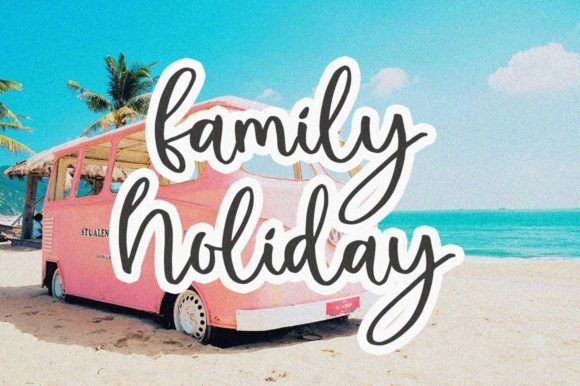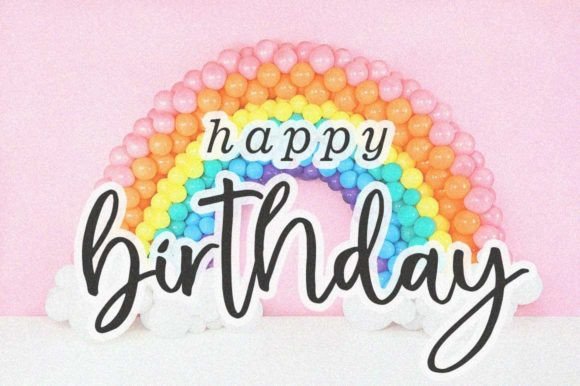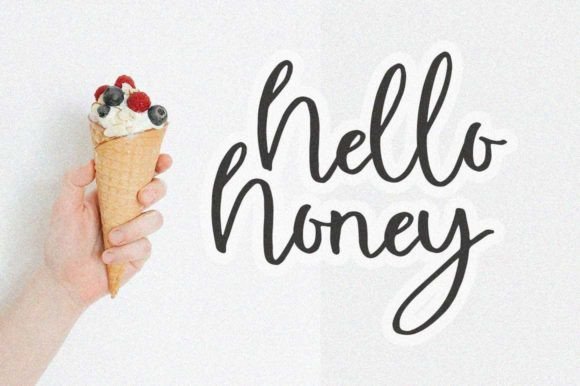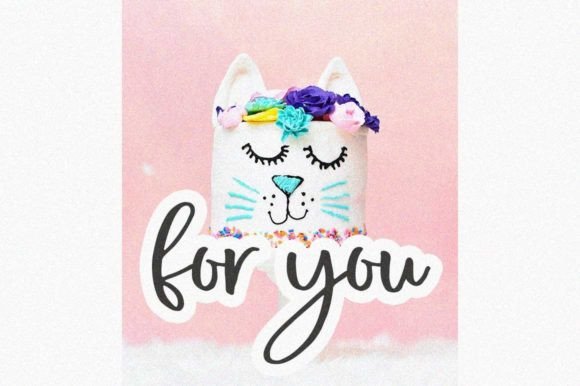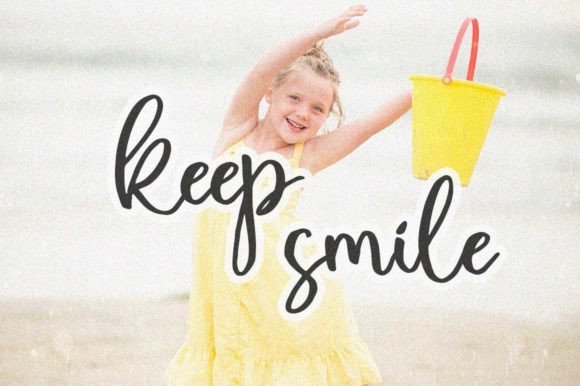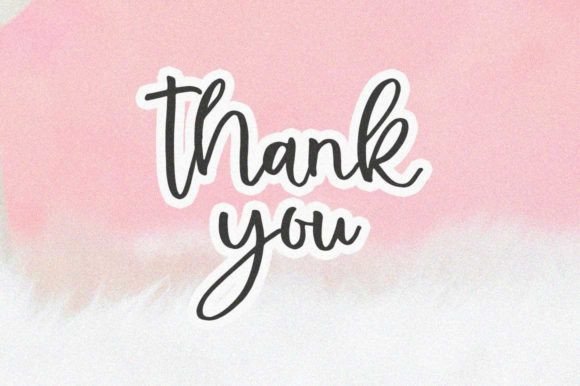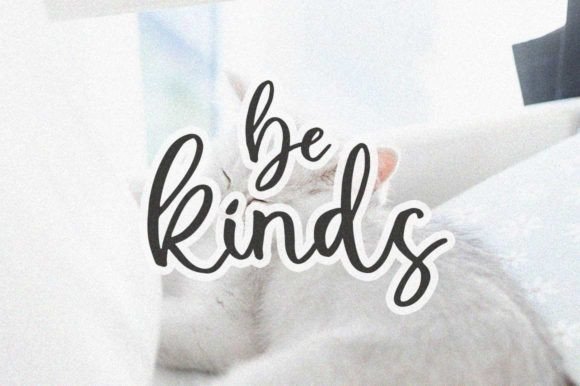
Farmhouse Kitchen Font
Add Simple Beauty with Farmhouse Kitchen Font
The Farmhouse Kitchen font is a very simple and beautiful handwritten script crafted with care to create interesting and engaging writing. Its clean and natural style makes it an excellent choice for a variety of creative projects, from digital design and crafts to presentations and greeting cards.
Perfect for Digital Design, Crafts, and More
Its simplicity and elegance add warmth and charm to every design.
A Handwritten Script with Natural Style
Each character in the Farmhouse Kitchenfont is thoughtfully designed with smooth and flowing lines that combine readability with artistic flair. This font is perfect for headlines, logos, quotes, and decorative text where a simple yet beautiful handwritten style is desired.
Make Your Designs Shine with Farmhouse Warmth
Typography shapes your design’s personality, and Farmhouse Kitchen adds a warm and inviting spirit. If you want to elevate your creative projects with a simple handwritten script, download the Farmhouse Kitchenfont today and create lovely, memorable visuals.